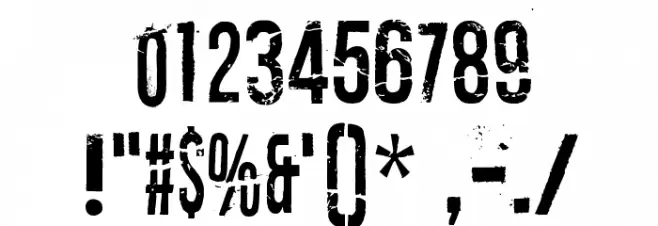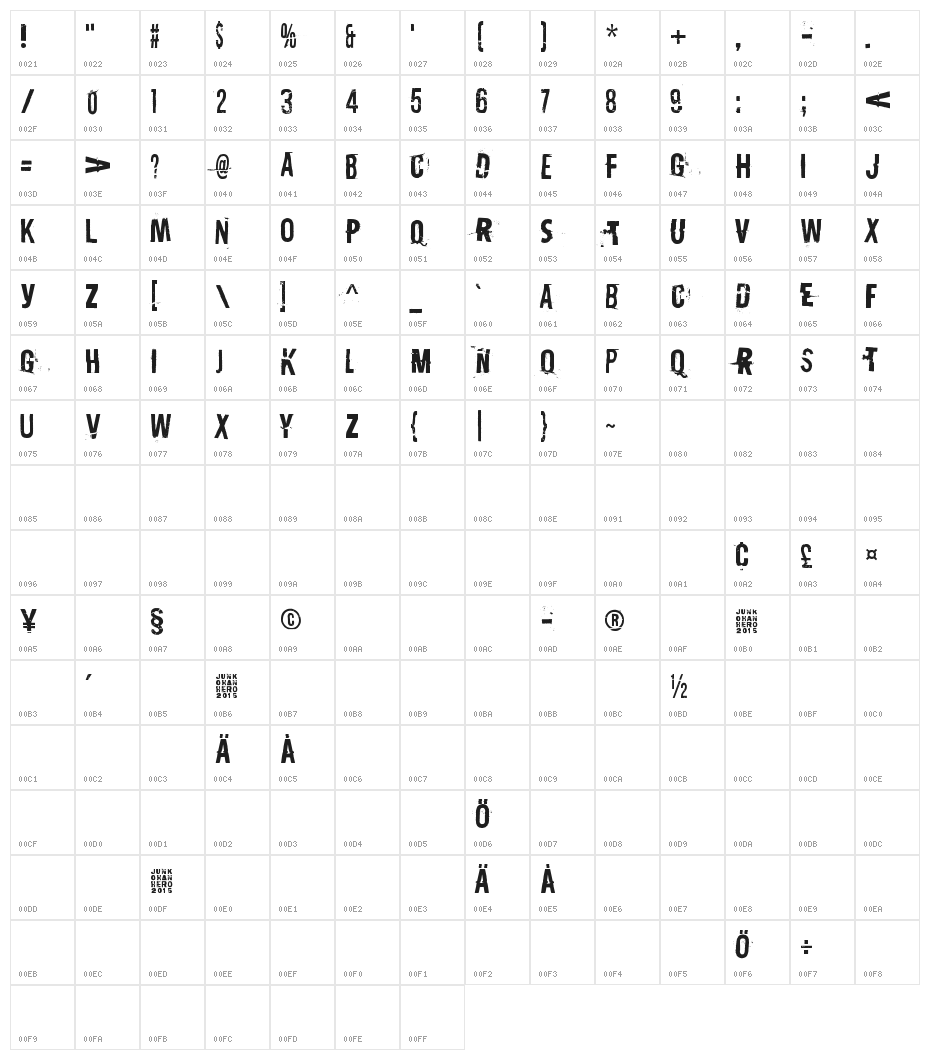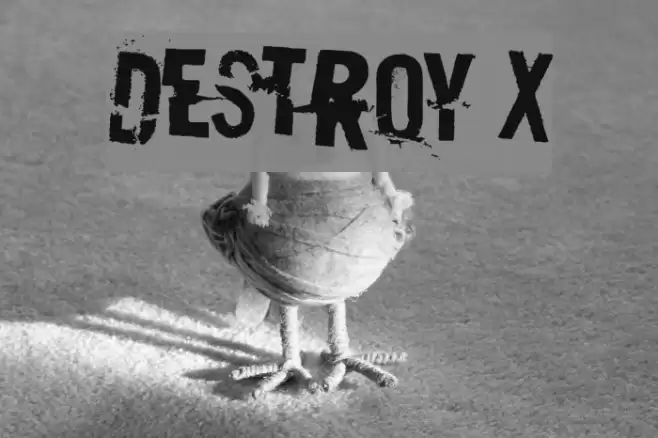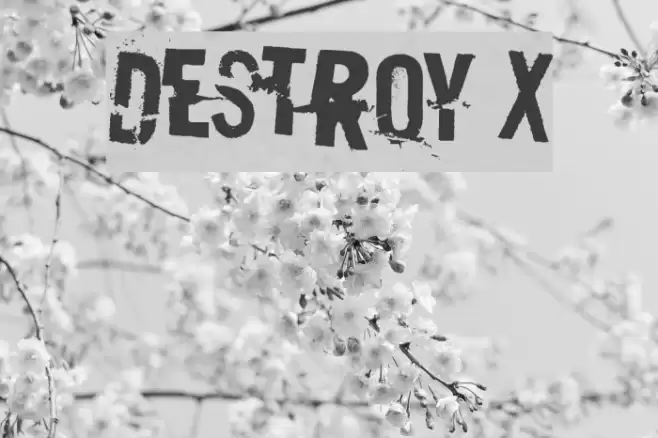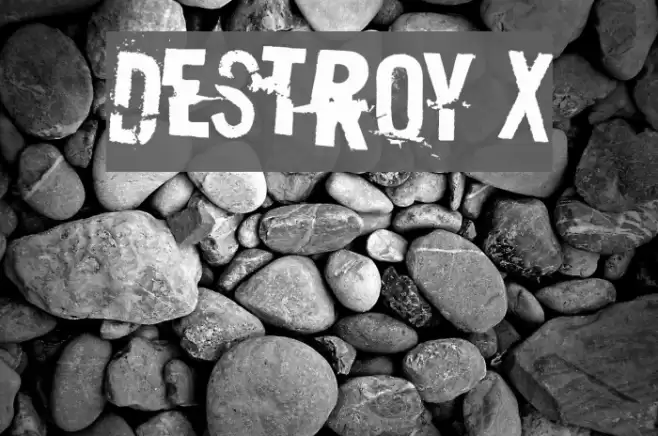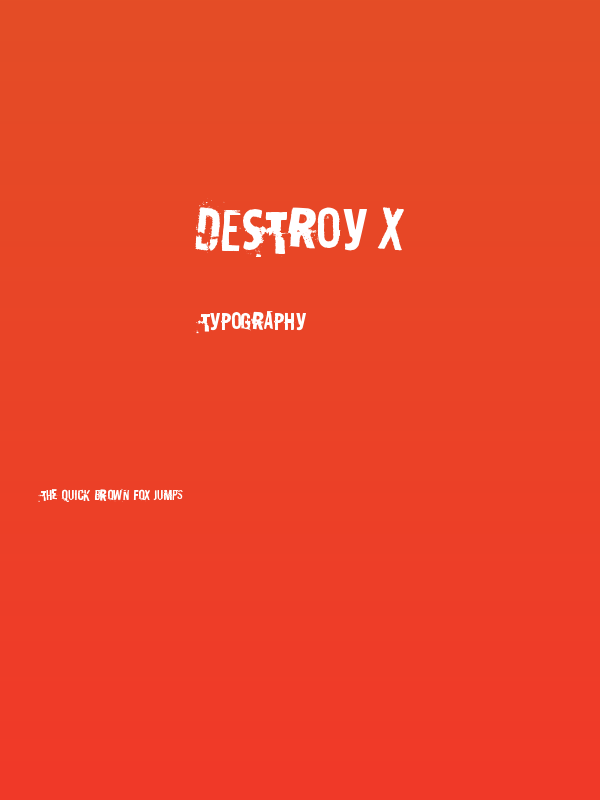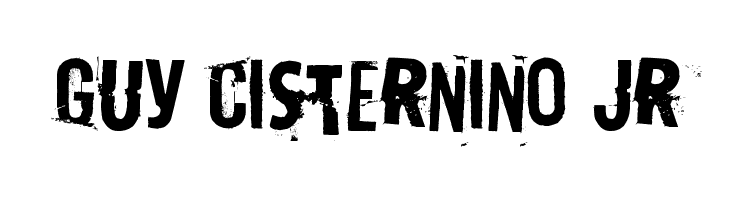
Destroy X Font
This font features a distressed, grunge style with a bold and impactful appearance. The characters are uppercase and lowercase, with numbers and special symbols, all exhibiting a worn, textured effect that suggests a sense of decay or destruction. The edges are rough and uneven, adding to the chaotic and rebellious aesthetic. This font is ideal for projects that require a raw, edgy look, such as music album covers, posters, or urban-themed designs. The overall style is distinctly decorative and display-oriented, making it unsuitable for body text but perfect for grabbing attention in headlines or logos.
| Overall Style | Grunge, Decorative |
| Proposed Projects | Ideal for music album covers, posters, urban-themed designs, and attention-grabbing headlines. |